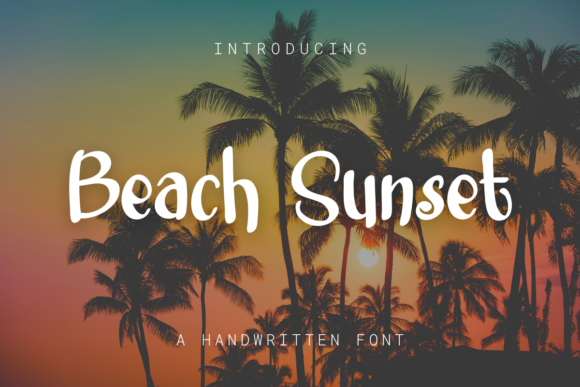
Unleashing the Magic of Beach Sunset Font
As I stood on the shore, watching the vibrant hues of the setting sun paint the sky with warm shades of orange and pink, I couldn’t help but feel inspired. The soft breeze carried the whispers of the waves, and the tranquil atmosphere sparked a creative fire within me. In moments like these, I’m reminded of the power of typography to evoke emotions and transport us to another world.
That’s exactly what the Beach Sunset Font is all about – capturing the essence of a serene sunset and infusing it into your designs. This elegant script font is designed to add a touch of sophistication and refinement to any project, making it a valuable asset for designers who crave uniqueness and creativity.
With its stylish alternates and ligatures, the Beach Sunset Font is more than just a pretty face – it’s a tool that can elevate your designs to new heights and leave a lasting impression on your audience.
Beach Sunset Font Key Features
- Font Family: Beach Sunset Font is a unique, hand-drawn font with a warm, beach-inspired feel.
- Character Count: The font contains over 300 characters, including uppercase and lowercase letters, numbers, and punctuation marks.
- Unique Characteristics: The font’s distinctive, hand-drawn style features subtle texture and imperfections, giving it a natural, organic feel.
Beach Sunset Font Review
Overall, I was pretty excited to dive into the Beach Sunset Font, but I found it to be a mixed bag. Here’s my honest review.
- The Beach Sunset Font has a beautiful, dreamy quality that’s perfect for designs focused on travel, relaxation, and happiness.
- The font’s unique, hand-drawn feel adds a touch of personality to any design.
- It’s great for use in social media graphics, website headers, and other visual elements where a whimsical touch is needed.
- The Beach Sunset Font can be a bit overused, so be sure to use it thoughtfully and sparingly to avoid clichés.
- Some characters may be missing or have varying levels of legibility, which can be frustrating for designers.
- The font’s bold and italic styles are a bit inconsistent, which can make it difficult to use in certain design contexts.
While the Beach Sunset Font has its charms, it’s not without its limitations. With a little creative restraint and attention to detail, it can be a great addition to your design toolkit. However, I wouldn’t recommend it as a go-to font for everyday use.
Tips for Getting the Most Out of the Beach Sunset Font
Use the Beach Sunset Font to add a touch of warmth and elegance to your designs. It’s perfect for:
- Summer-themed designs
- Travel brochures and itineraries
The Beach Sunset Font is a versatile font that can be used in a variety of contexts, including:
- Restaurant and bar menus
- Hotel and resort branding
- Choose a rectangular shape as the base of the sign.
- Apply a gradient effect to the background to mimic a beach sunset.
- Use the Beach Sunset Font to write a welcoming message, such as “Welcome to our beach house!”
- Seashell or starfish illustrations for added whimsy.
- A soft, pastel color palette to evoke a sense of serenity.
- A subtle texture resembling driftwood or sand for a beachy feel.
- Choose a square or rectangle shape as the base of your graphic.
- Apply a bright, gradient background to mimic a beach sunset.
- Use the Beach Sunset Font to write a quote, message, or title, such as “Seas the day!”
- Illustrations of seagulls, beach balls, or other coastal-themed icons.